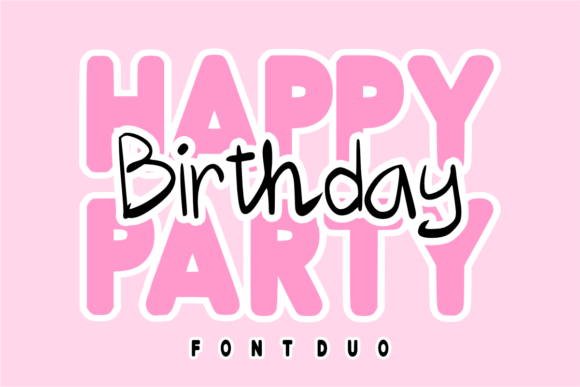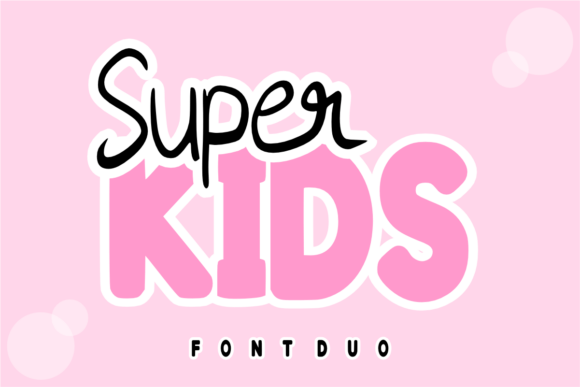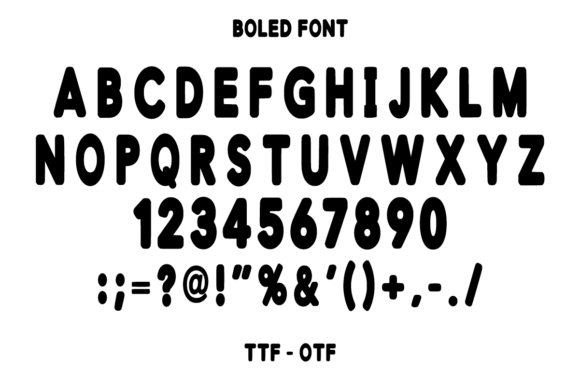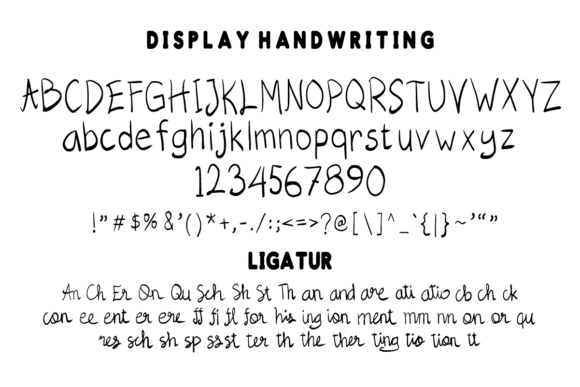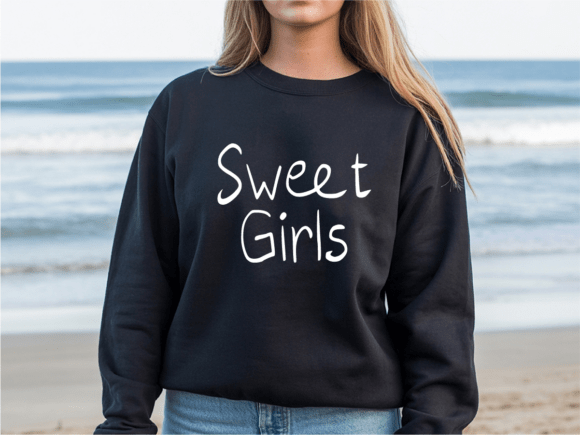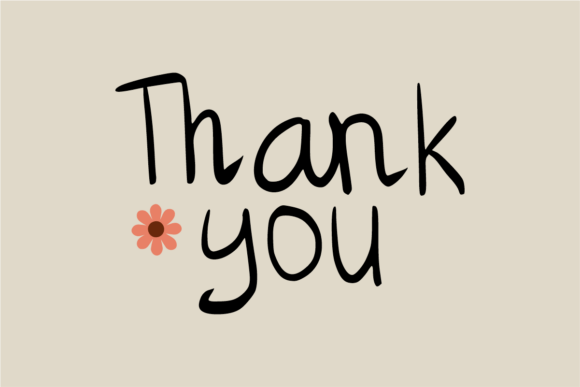
✨ Boled Display – Playful & Bubbly Font Duo ✨
Meet Boled Display, a vibrant and energetic font duo designed to make your projects “pop”! Combining a bold, bubbly display font with a chic, natural handwriting script, this pairing offers the perfect balance of fun and personality.
The Perfect Font Duo for Kawaii and Soft-Girl Aesthetics
Boled typeface comes as a dynamic duo, featuring a chunky, rounded display style and a charmingly messy handwriting companion. It is the perfect solution for creators working in the “kawaii” or “soft-girl” aesthetic, providing a friendly and youthful vibe to any digital or print canvas.
When you use the Boled font for social media stickers, nursery decor, or upbeat merchandise, you instantly inject a sense of joy into the project. The contrast between the heavy “Boled” letters and the thin, organic strokes of the Boled typeface allows for layered designs that feel handcrafted and personal.
Enhance Your Work with Boled Display
Enhance your work by adding bright pastels or “sticker” outlines to the font to create a pop-art look that children and adults will love. The Boled Display font duo is perfect for a variety of design projects, including:
- Social media stickers and graphics
- Nursery decor and kid-friendly designs
- Upbeat merchandise, such as t-shirts and tote bags
- Digital and print invitations
Key Features of Boled Display Font Duo
The Boled Display font duo comes with several key features that make it a must-have for designers and crafters:
- Dynamic Duo: Boled Display features a bold, bubbly display font paired with a chic, natural handwriting script.
- Kawaii and Soft-Girl Aesthetics: Perfect for creators working in the “kawaii” or “soft-girl” aesthetic.
- Handcrafted Feel: The contrast between the heavy “Boled” letters and the thin, organic strokes of the Boled typeface allows for layered designs that feel handcrafted and personal.
Why Choose Boled Display Font Duo?
Boled Display font duo is the perfect choice for designers and crafters looking to add a playful and youthful vibe to their projects. With its bold, bubbly display font and chic, natural handwriting script, this pairing offers the perfect balance of fun and personality.
Whether you’re working on a social media sticker, nursery decor, or upbeat merchandise, Boled Display font duo is sure to make your project stand out. So why choose Boled Display font duo? Here are just a few reasons:
- Unique and Playful: Boled Display font duo offers a unique and playful way to add personality to your designs.
- Versatile: Perfect for a variety of design projects, including social media graphics, nursery decor, and upbeat merchandise.
Get Ready to Add a Pop of Fun to Your Designs!
Boled Display font duo is the perfect way to add a pop of fun to your designs. With its bold, bubbly display font and chic, natural handwriting script, this pairing offers the perfect balance of fun and personality.